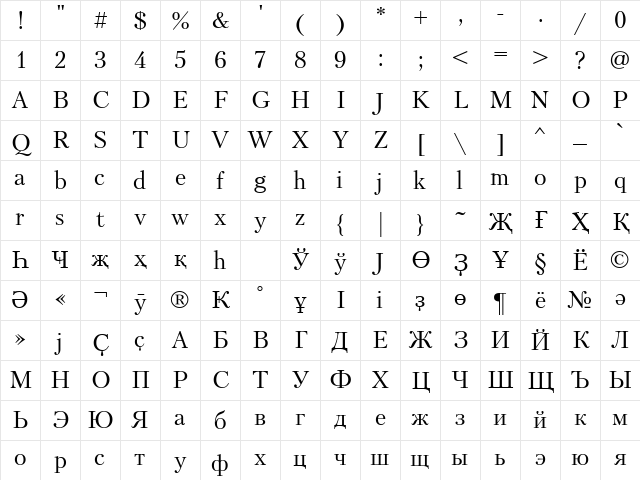
Complete PetersburgITT Regular glyph index. Displaying only characters natively supported by PetersburgITT Regular font.
PetersburgITT is a composed and adaptable typeface that performs quietly and consistently across a wide range of design contexts.